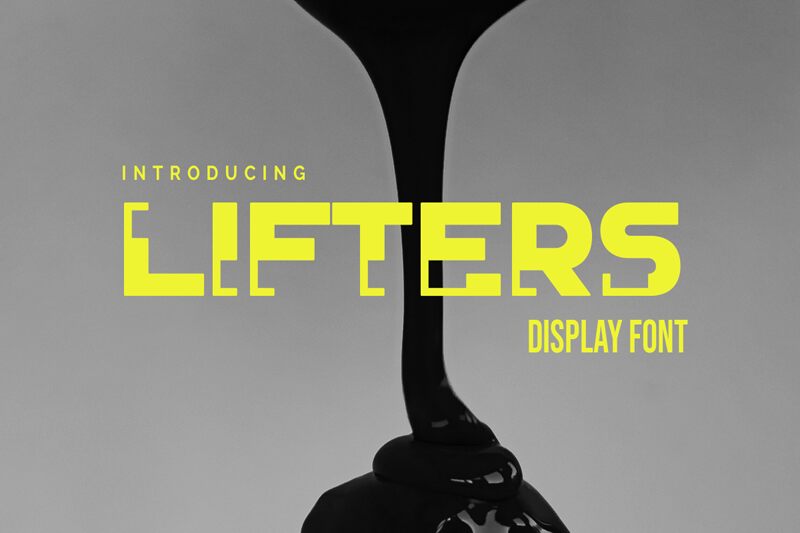
Lifters
Lifters, crafted by Ronin Design, stands as a bold embodiment of modernity and strength in the realm of display fonts. With its techno style, Lifters exudes an aesthetic that is at once cutting-edge and eminently readable. The font's solid, geometric construction and impactful bold weight make it a standout choice for projects that demand attention.
The distinct angularity and block-like structure of Lifters lend it an authoritative voice, perfect for high-impact headlines or any application where clarity and visual impact are paramount. Its techno flair is not just a nod to digital culture but an invitation to designers looking to infuse their work with a sense of futuristic sophistication.
Whether used in branding, poster design, or multimedia presentations, Lifters offers versatility while maintaining its unique character. The font's clean lines and robust form ensure legibility across various mediums. Elevate your creative endeavors with the assertive presence and sleek contours that define Lifters.